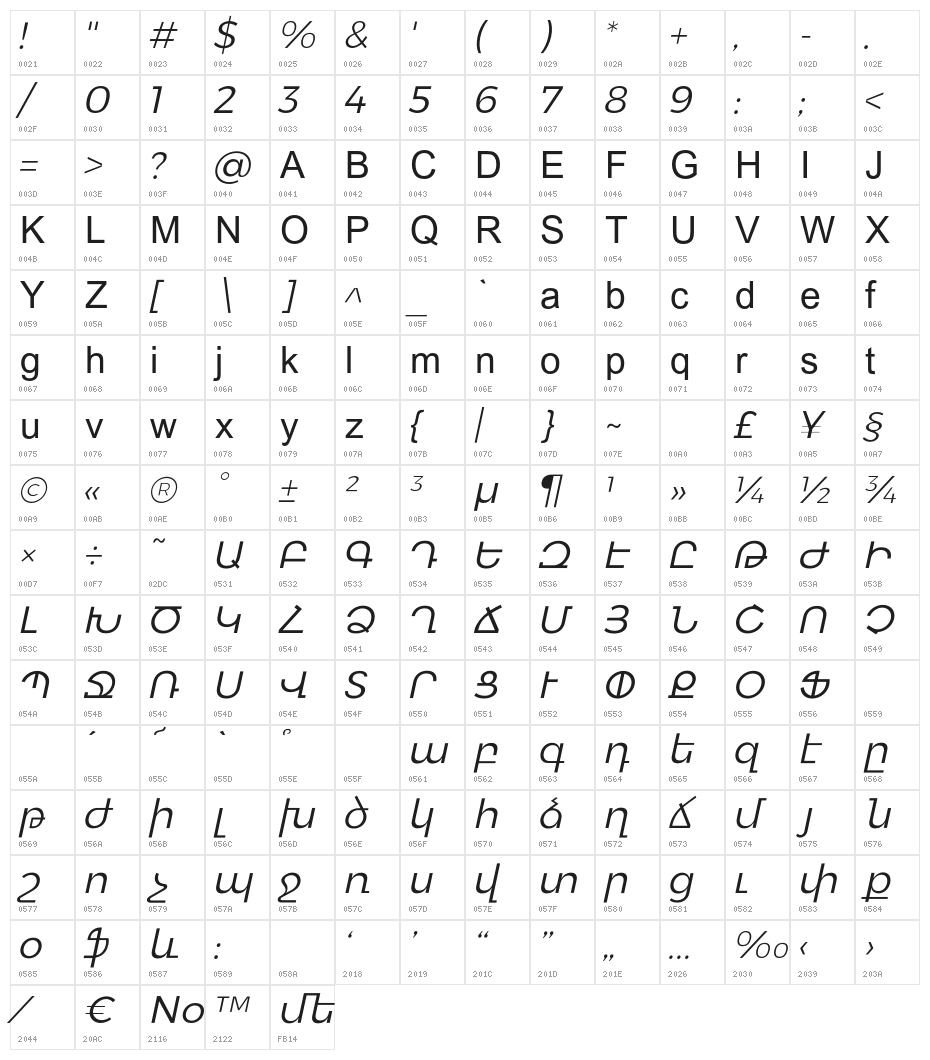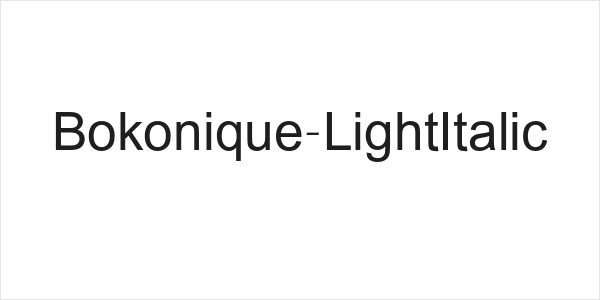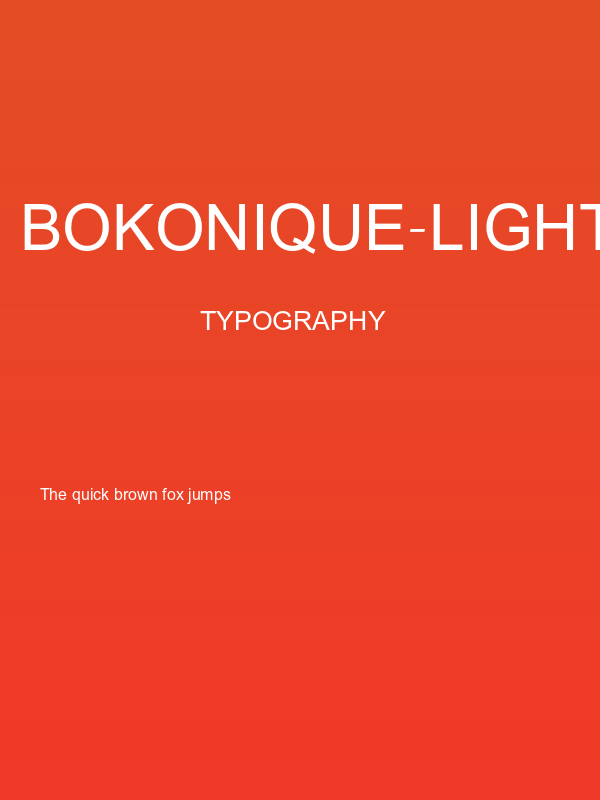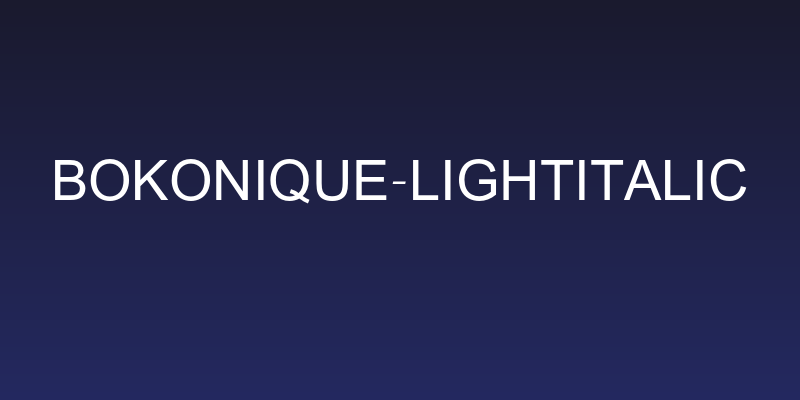
Bokonique-LightItalic Font
Bokonique-LightItalic Description
This font features a clean and modern sans-serif style with a light weight and italicized form. The characters are sleek and streamlined, offering a contemporary aesthetic that is both professional and approachable. The uppercase and lowercase letters maintain a consistent height and width, providing a harmonious appearance. The numerals are clear and easy to read, making them suitable for various applications. Special characters are well-defined, enhancing the font's versatility. The overall design is minimalist, focusing on readability and elegance.